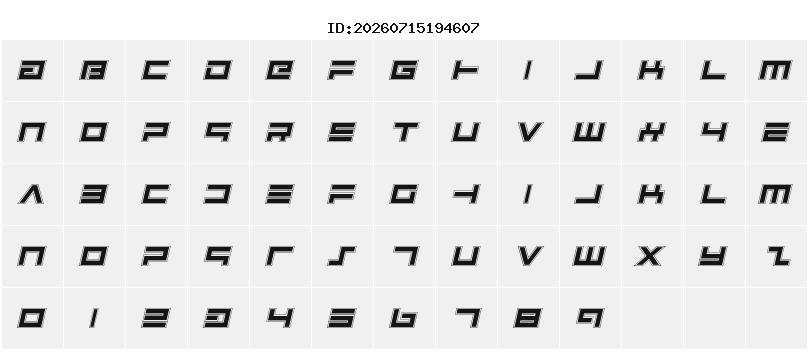
Avenger College Italic Preview
• Font Name: Avenger College Italic
• Full Font Name: Avenger College Italic
About Avenger College Italic.ttf
Avenger College Italic.ttf is a modern, elegant sans-serif font designed for ultimate readability and visual harmony. Perfect for branding, headlines, web design, and print materials.